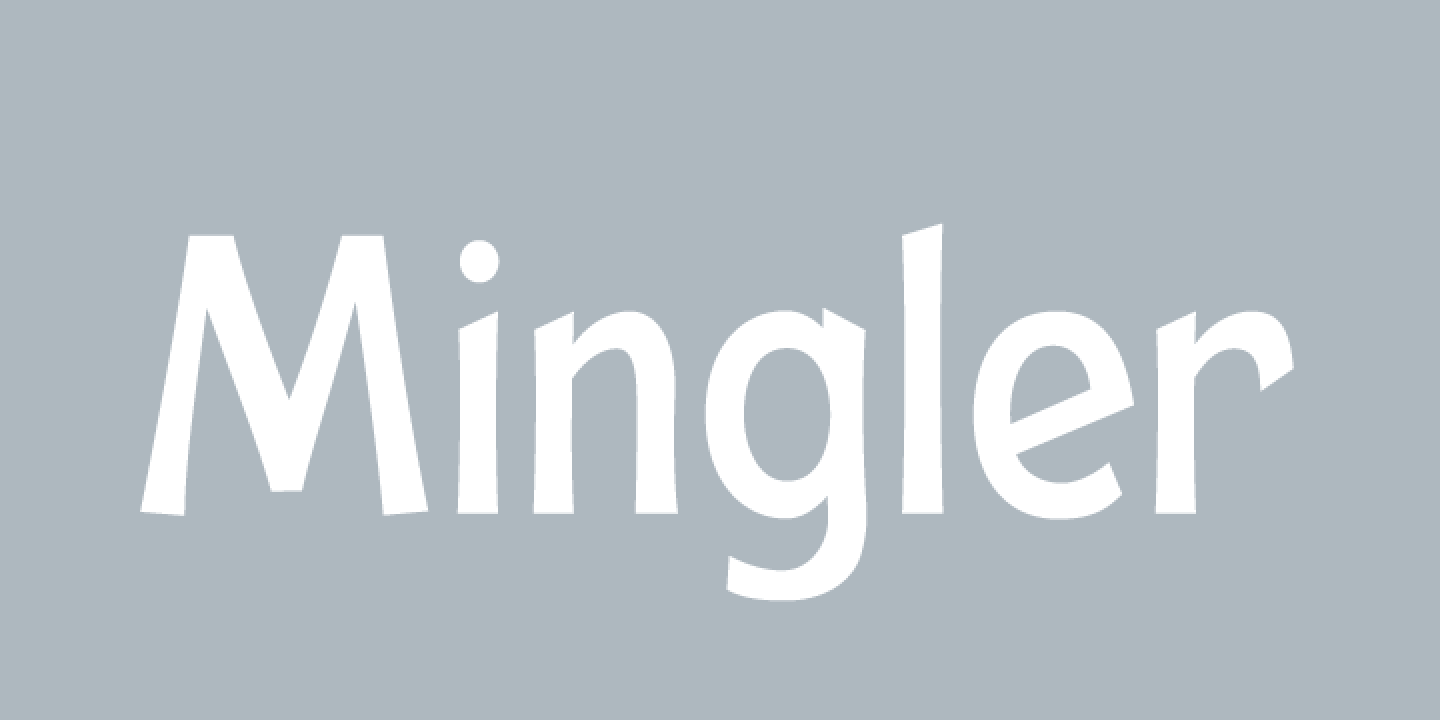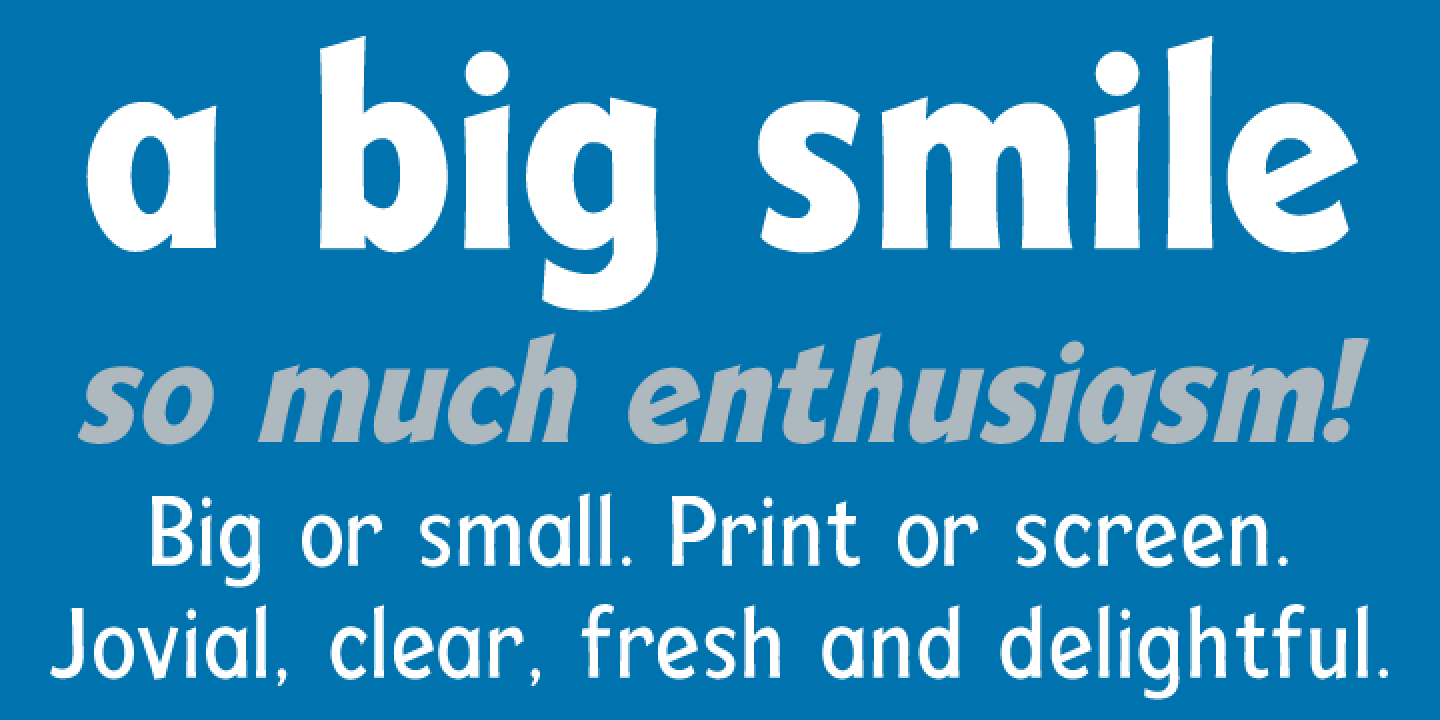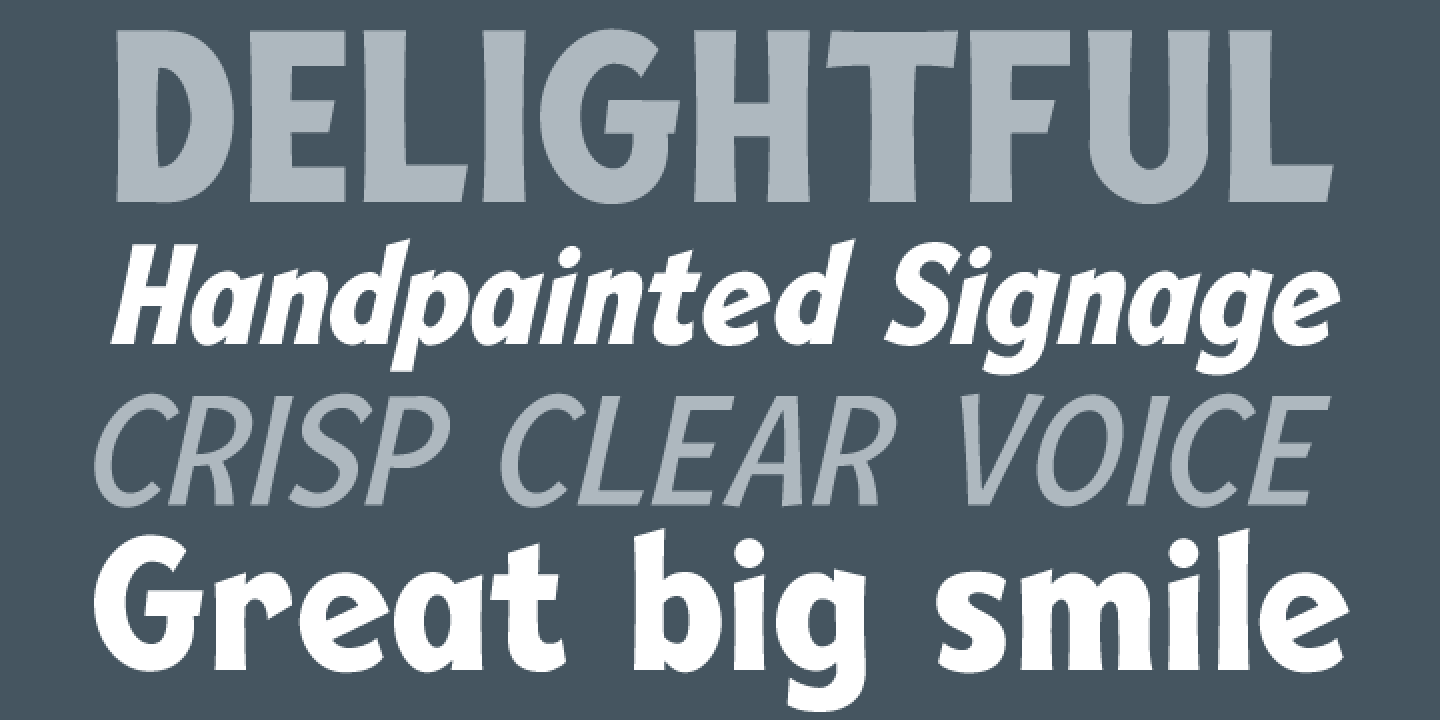
Mingler
Font Family by Chank Co
The Mingler fonts have a great big smile and a crisp clear voice. They were originally created as a branding font for a restaurant chain to use in coupons, print ads and tv commercials. More recently this font is picking up popularity as a multi-purpose headline font for screens. It looks good on the web, in games and on-screen apps. Inspired by the subtle bends and flow of hand-painted signage, each stroke bends a bit in the middle and flairs out a bit on the ends. And look at that "e" —it is smiling! Such a friendly font.